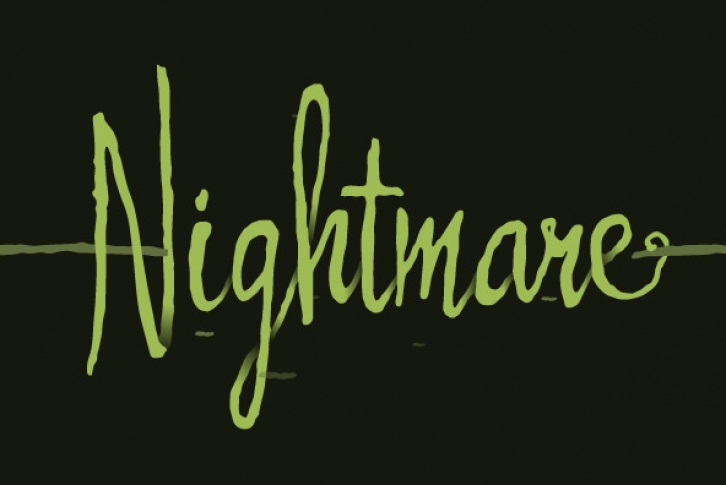
With a hand-inked look, Panhandler flows like decorative but unfussy cursive writing. The letters are designed to work together to create a consistent yet unique flavor that most script type of this sort lacks.
Panhandler is available in OpenType format and will work on all standard platforms and software. Advanced features will require OpenType compatible software. The OpenType version has automatically substituting glyphs and ligatures to avoid some of the problems other connecting scripts encounter. The OpenType version also includes a bonus set of swash capital letters and a decorative swash ending lowercase set.